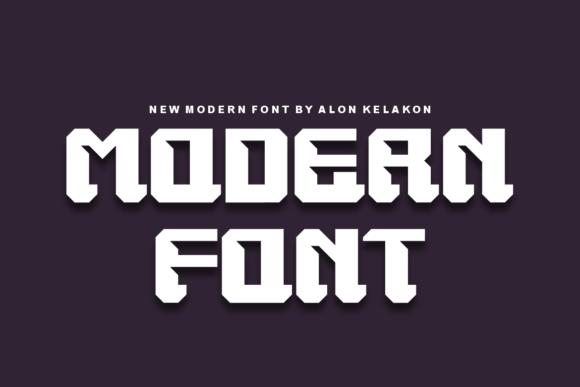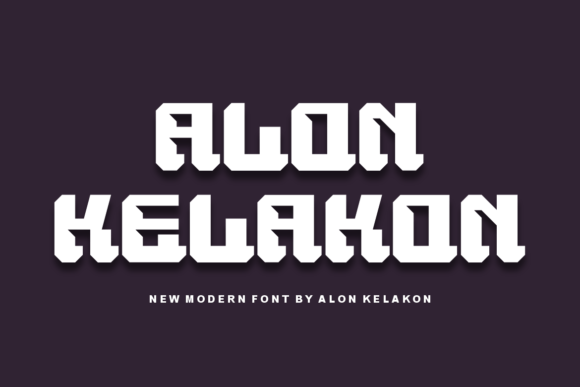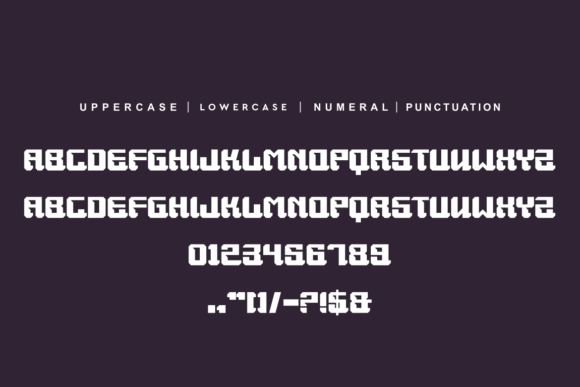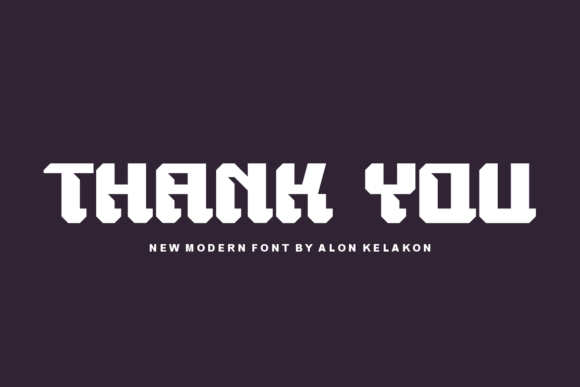
Introduction to Gangsik Font
Remember that moment when you stumbled upon the perfect font that elevated your entire design project? The one that made you feel like you’re on top of the world, and all your creative ideas started flowing? That’s exactly what we’re excited to share with you today – the Gangsik Font. This unique and bold display font is a game-changer for designers, and we can’t wait to dive into its world.
Whether you’re working on a branding project, creating a logo, or designing a movie title, the Gangsik Font is the perfect addition to your design resource library. Its high-quality design makes it stand out from the crowd, and its versatility ensures that it will be a valuable asset for any creative project. And the best part? You can download it for free, complete with a transparent background, making it easy to integrate into your designs.
Key Features of Gangsik Font
- High-quality design resource ideal for creative projects, featuring a unique and stylish design.
- Features a clean and modern design, perfect for use in logos, branding materials, and other visual identity elements.
- Perfect for use in a variety of design contexts, from digital to print, due to its versatility and adaptability.
Honest Review: Gangsik Font
What works well: ✨ The Gangsik Font has a unique and modern design that sets it apart from other fonts. It’s perfect for creating eye-catching headings and titles. I also appreciate the transparent background, which makes it easy to use with different color schemes.
What could be improved: ⚠️ While the Gangsik Font is a great resource, I did find it a bit limited in terms of font styles. It’s mostly suitable for headings and titles, but may not be the best choice for body text. Additionally, some of the characters may not be as legible as I’d like, especially at smaller font sizes.
Overall, I’d say the Gangsik Font is a solid addition to any designer’s toolkit. Its unique design and transparent background make it a great choice for creative projects. While it may have some limitations, it’s definitely worth considering for your next design project.
- Unique and modern design
- Perfect for headings and titles
The Gangsik Font is a high-quality design resource ideal for creative projects. This free download offers a unique and stylish aesthetic that can elevate your designs. With a transparent background, you can easily integrate it into your projects.
To get the most out of Gangsik Font, experiment with different font sizes, colors, and styles. You can also use it in combination with other design elements to create a unique look.
The Gangsik Font is ideal for creative projects such as branding, packaging, and advertising. It’s also great for use in digital design, such as website headers and social media graphics.